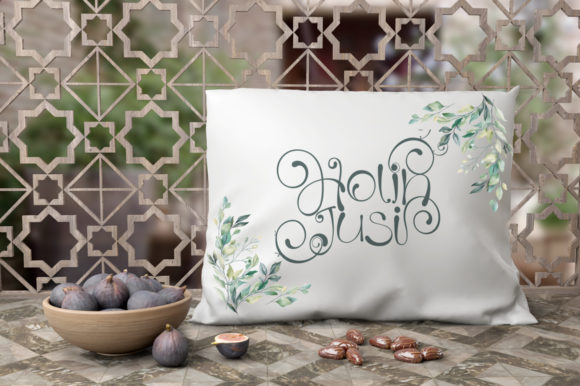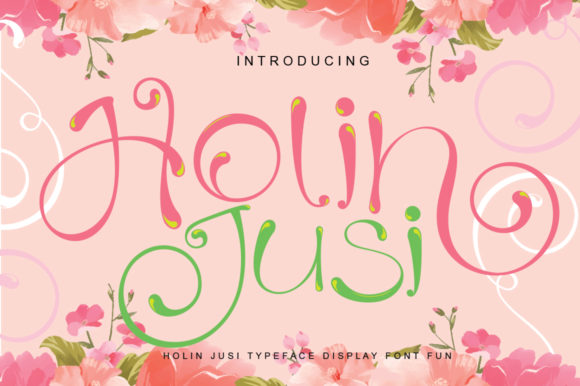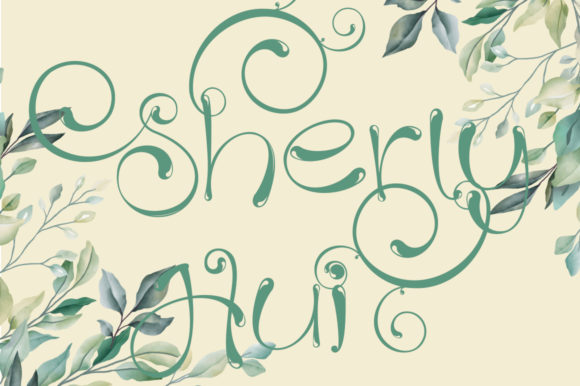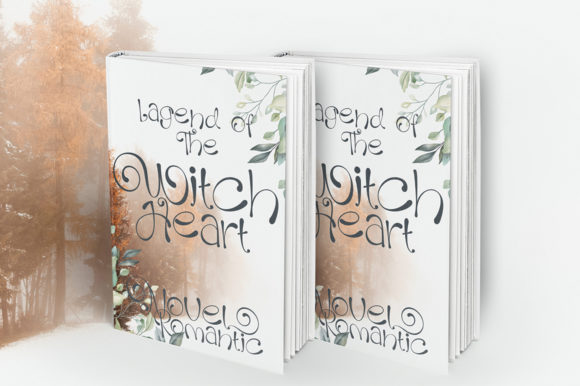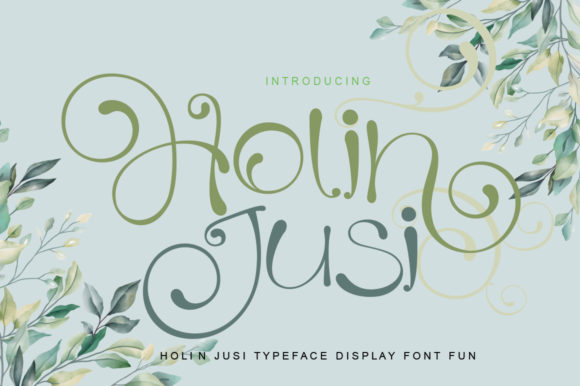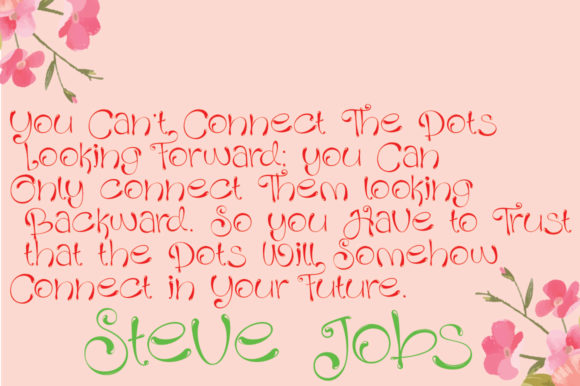
Introduction to Holiland Font
Have you ever stumbled upon the perfect design element that elevates your entire creative project? For designers, finding the right font can be a game-changer. It’s like stumbling upon a hidden treasure that adds that extra oomph to your design. This is exactly what the Holiland Font does – it adds a cheerful touch to your designs, making them stand out from the crowd.
As a valuable design resource, the Holiland Font is perfect for designers who want to add a playful and whimsical feel to their work. With its high-quality design and transparent background, this font is a free download that can be used for a wide range of applications, from logos to social media graphics and beyond.
Key Features of Holiland Font
- Unique, modern design with a transparent background for versatile use
- Includes a wide range of characters, including uppercase and lowercase letters, numbers, and punctuation
- Perfect for use in logos, branding, and other creative projects requiring a modern and sleek design
Honest Review: Holiland Font
I recently stumbled upon the Holiland Font, and I must say it’s a great addition to my design resource library. The font is available for a free download, which is always a bonus for designers on a budget.
One of the things that stands out about the Holiland Font is its high quality and versatility. It’s perfect for creative projects that require a touch of elegance and sophistication. The font has a transparent background, making it easy to layer and customize.
Here are some of the things that work well with the Holiland Font:
- ✨ Elegant and sophisticated design
- ✨ High-quality and crisp typography
- ✨ Versatile and suitable for various creative projects
- ⚠️ Limited character set and language support
- ⚠️ Not ideal for use in very small font sizes
Overall, I’m impressed with the Holiland Font and would recommend it to designers looking for a high-quality, free font for their creative projects. Just be aware of its limitations, and you’ll be good to go!
Tips for Getting the Most Out of Holiland Font
Experiment with different font sizes, colors, and combinations to achieve a unique look. Also, consider using the font in conjunction with a transparent background for a clean and modern design.
Common Use Cases for Holiland Font
Holiland Font is ideal for creative projects, such as infographics, brochures, and social media graphics. Its high-quality design and transparent background make it perfect for showcasing information in a visually appealing way.